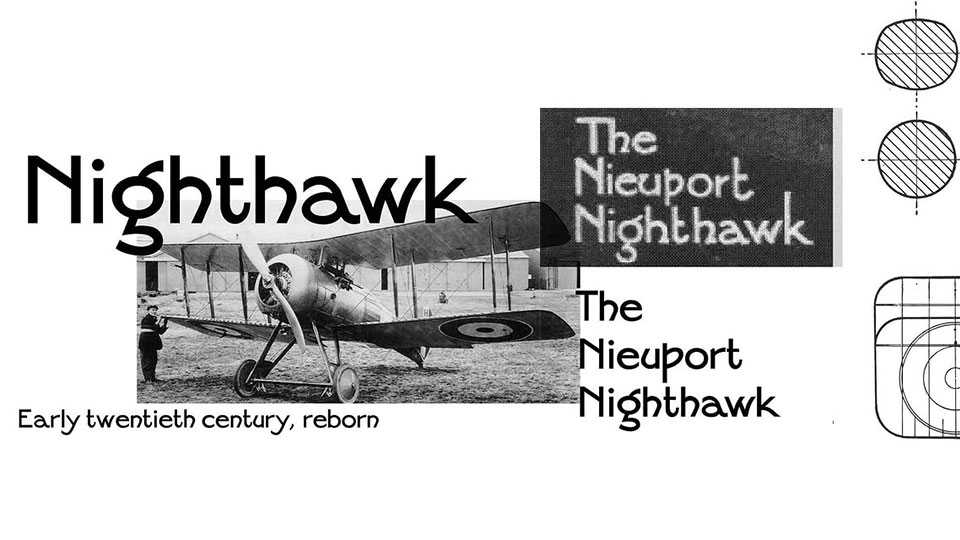
Download Nighthawk font, a bold sans serif infused with the charm of Art Nouveau and Art Deco lettering. Its wide, rounded shapes and subtle angular details recall the grace of hand-painted signs and vintage marquees.
Designer: Erwan Le Rétif